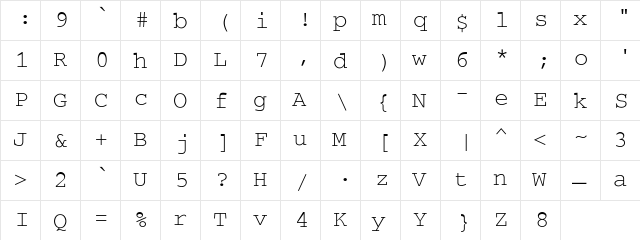
SecretCode-Normal Regular
Design Context for SecretCode-Normal Typeface
SecretCode-Normal uses fixed-width spacing throughout, giving it the structured, systematic character associated with coding environments and technical documentation.
A natural fit for code editors, technical documentation, developer-focused branding, and terminal-inspired UI.
Pro Tip: Pair SecretCode-Normal with a proportional sans for UI contexts where code-style labels and regular body copy need to coexist.